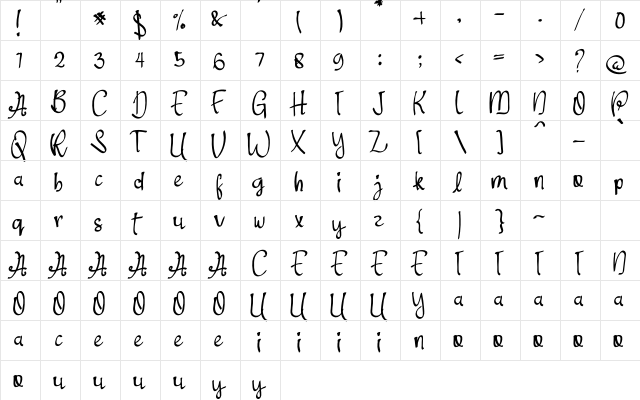
Dastana Regular Font Preview
Dastana Regular
Design Context for Dastana Typeface
Dastana is a composed and adaptable typeface that performs quietly and consistently across a wide range of design contexts.